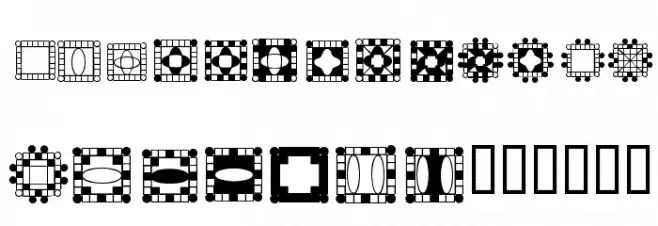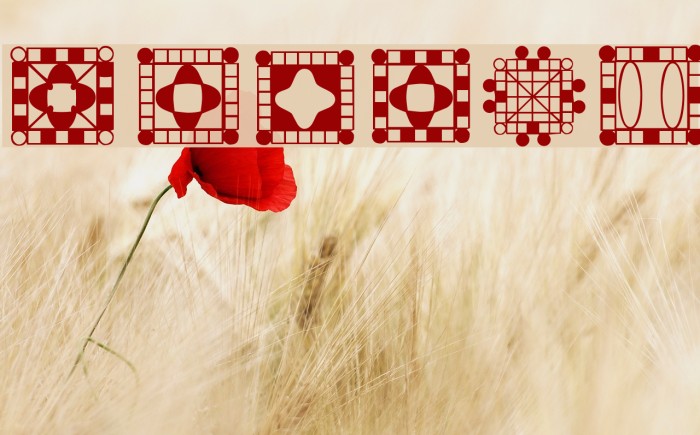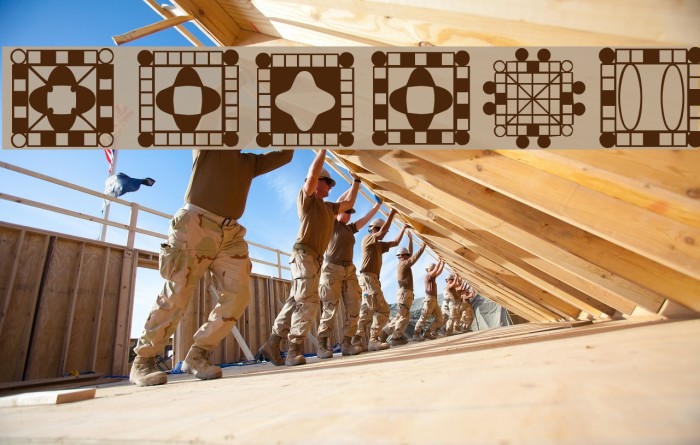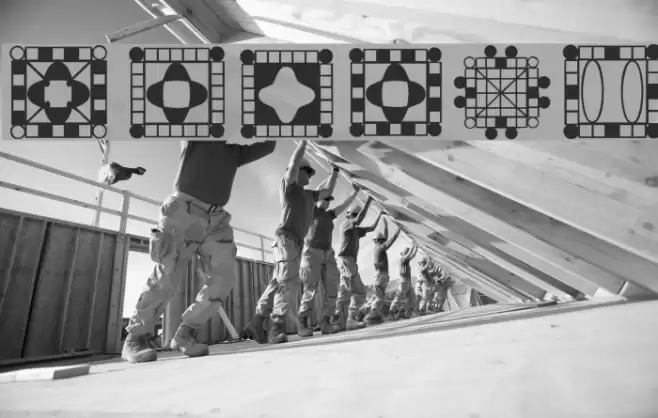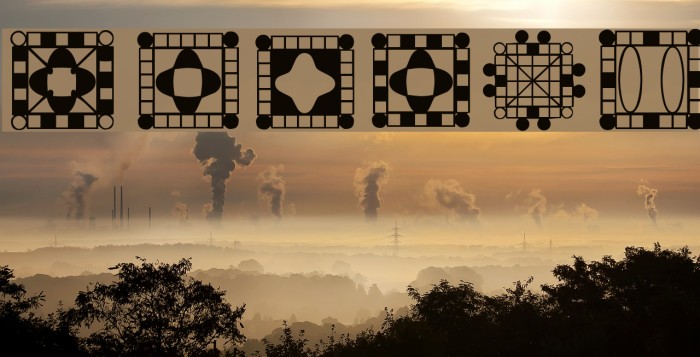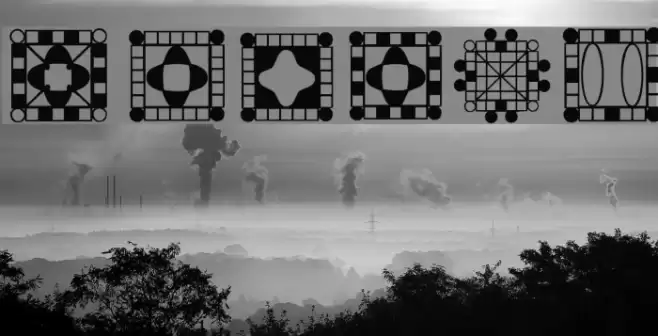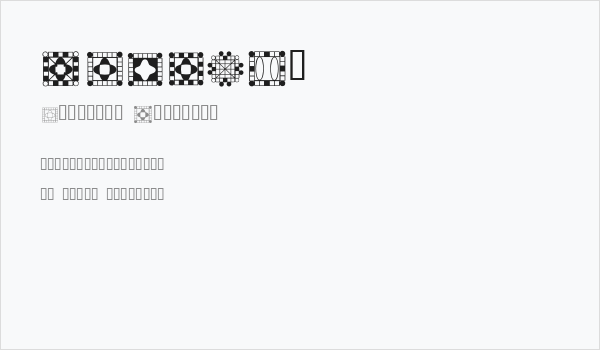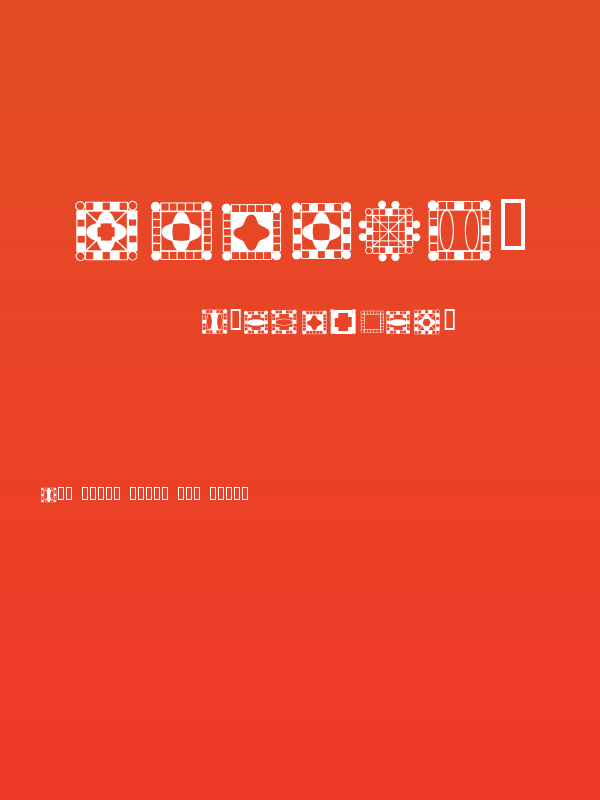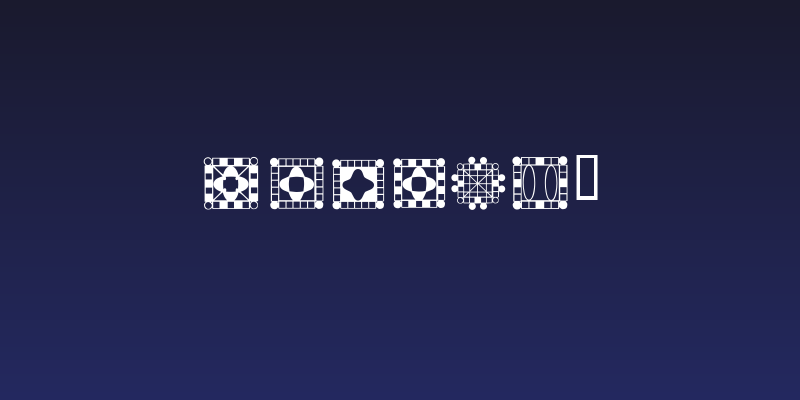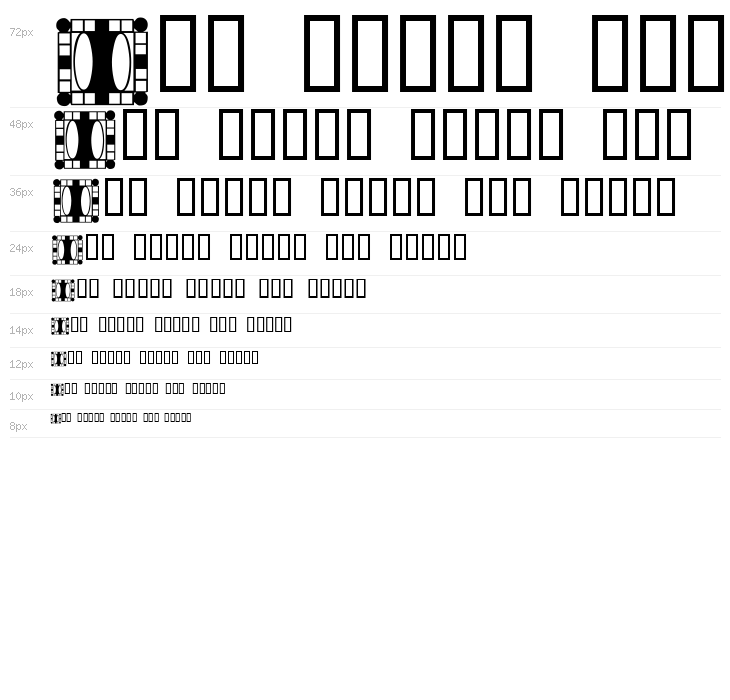
HDGEMS9 Font
HDGEMS9 Description
This is not a valid font. The image contains a series of decorative square patterns with various geometric shapes inside, resembling a mosaic or tile design. Each square is unique, featuring different arrangements of circles, ovals, and rectangles, often with a checkered or dotted border. The designs are intricate and symmetrical, creating a visually striking effect. These patterns are more suited for decorative purposes rather than as a functional typeface.
| Use Case | Decorative elements, not suitable for text. |
| Proposed Projects | Use for decorative borders, art projects, or as design elements in graphic design. |